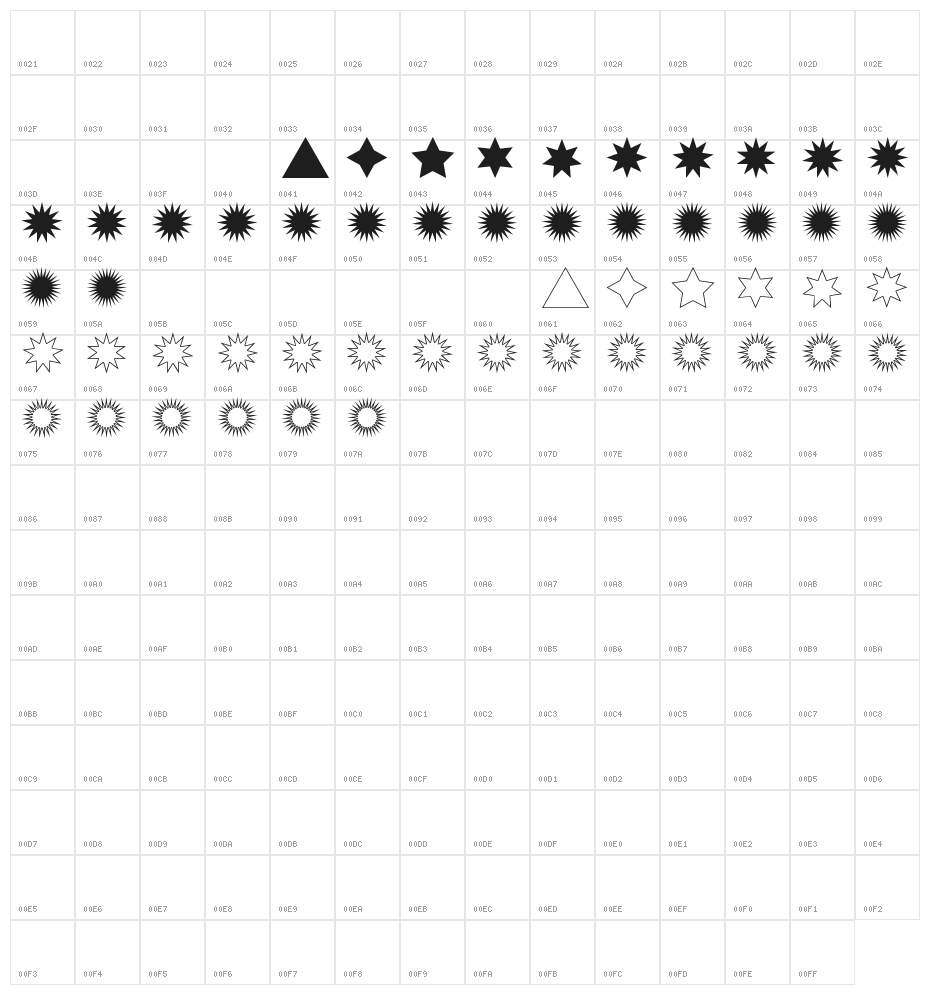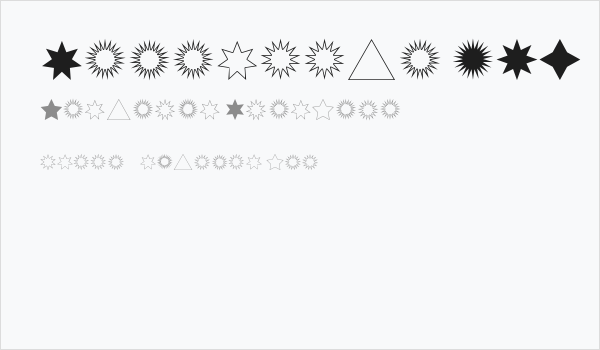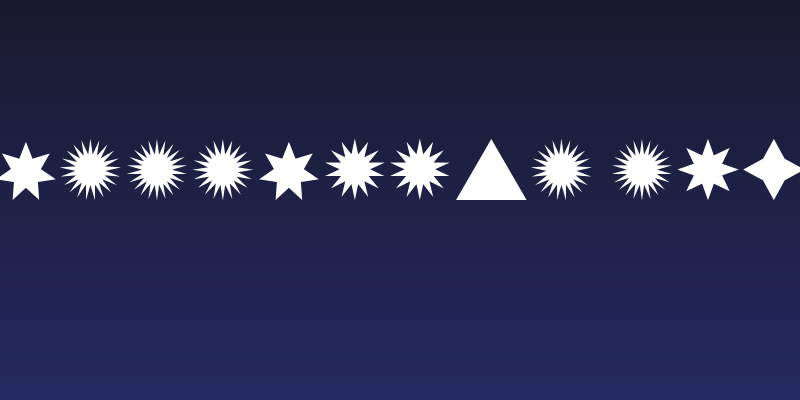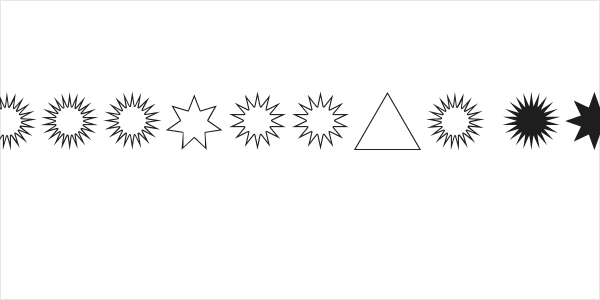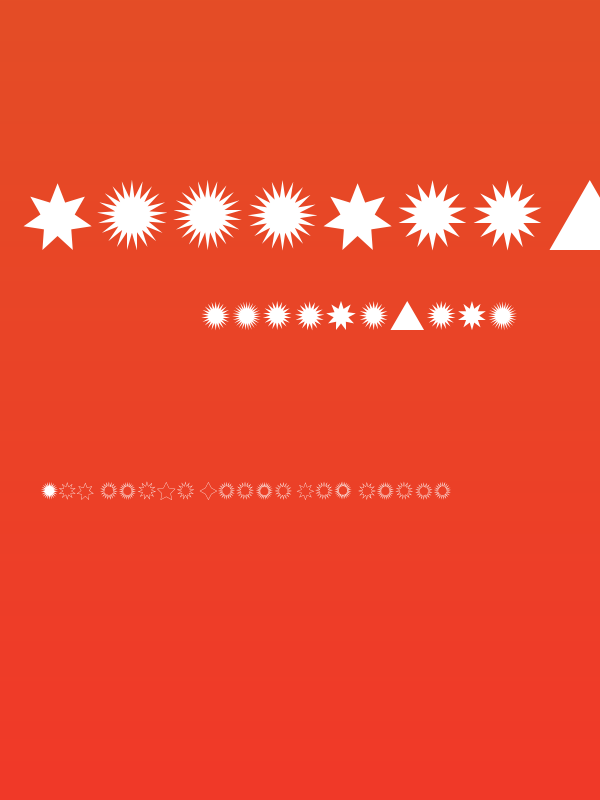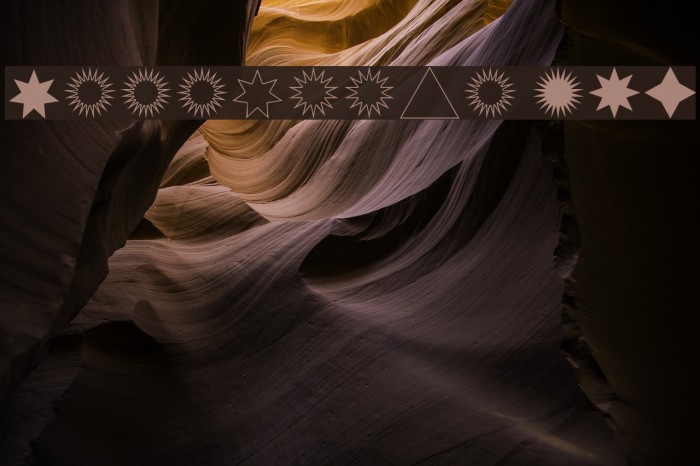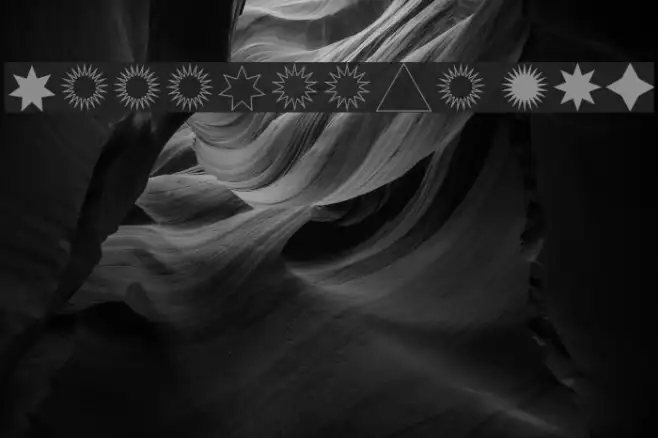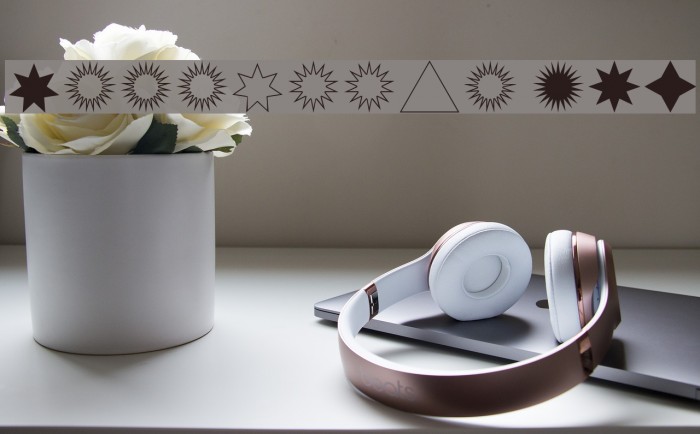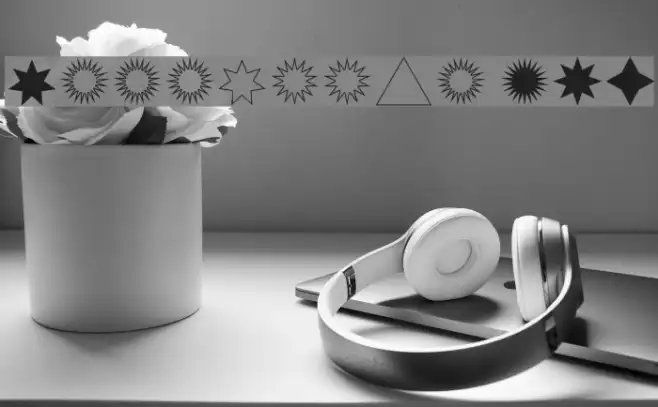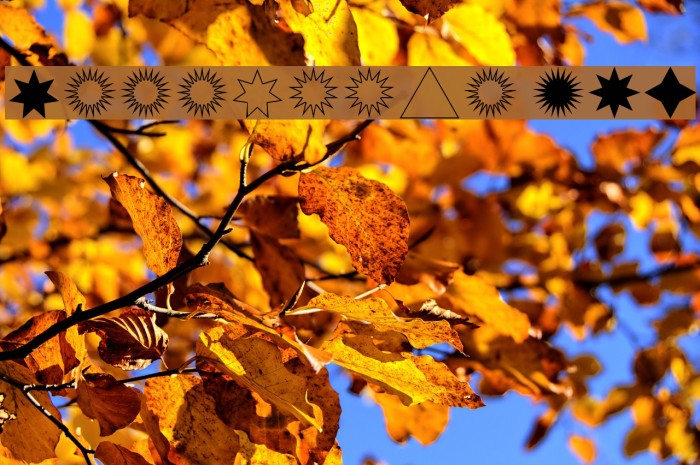
Estrellas TFB Font
Estrellas TFB Description
This is not a traditional font but rather a collection of decorative star and geometric shapes. The design features a variety of starburst patterns, ranging from simple triangles to complex multi-pointed stars. Each shape is distinct, with some filled and others outlined, offering a diverse set of visual elements. The collection includes both symmetrical and asymmetrical designs, providing a wide range of stylistic options for creative projects. These shapes can be used to add visual interest and emphasis in graphic design, scrapbooking, or digital art projects.
| Use Case | Decorative elements in design projects. |
| Proposed Projects | Ideal for use in graphic design, digital art, scrapbooking, or as decorative elements in various creative projects. |